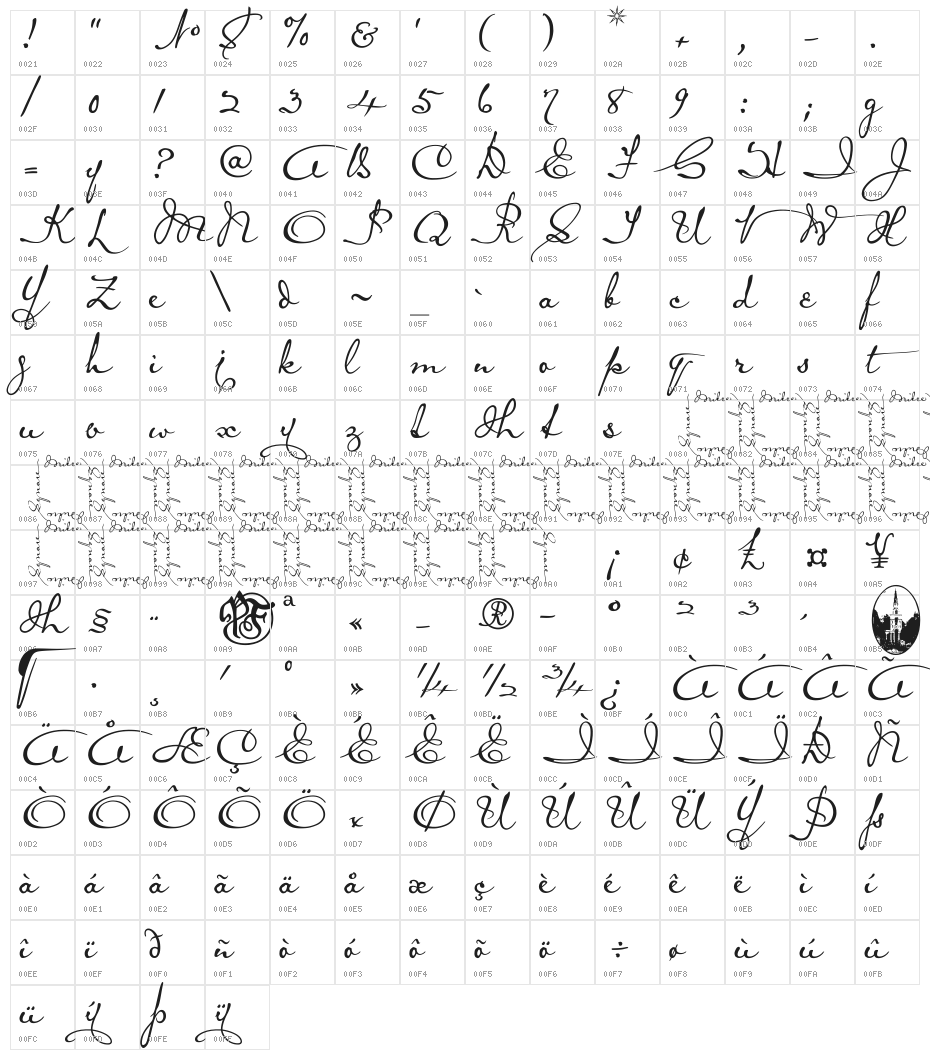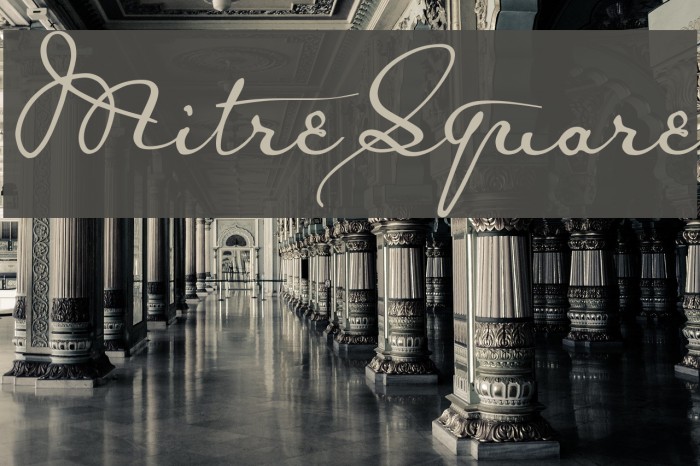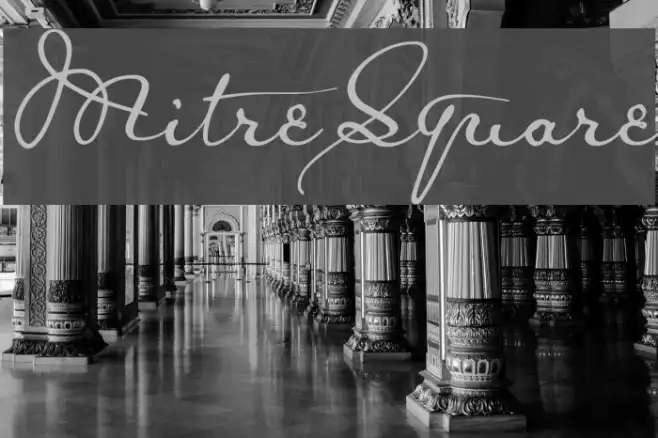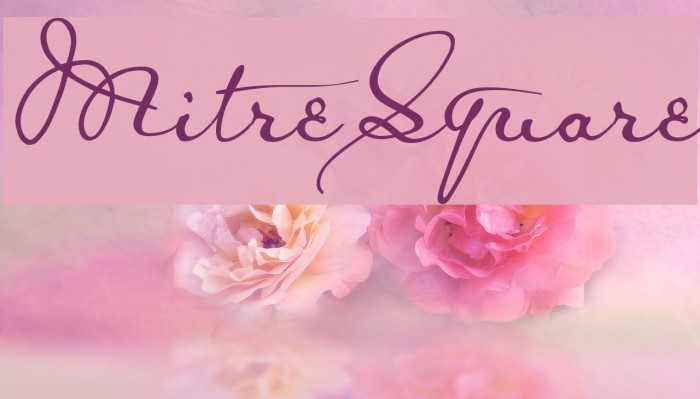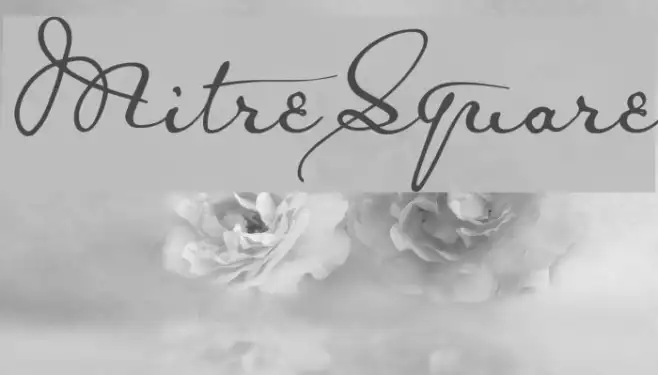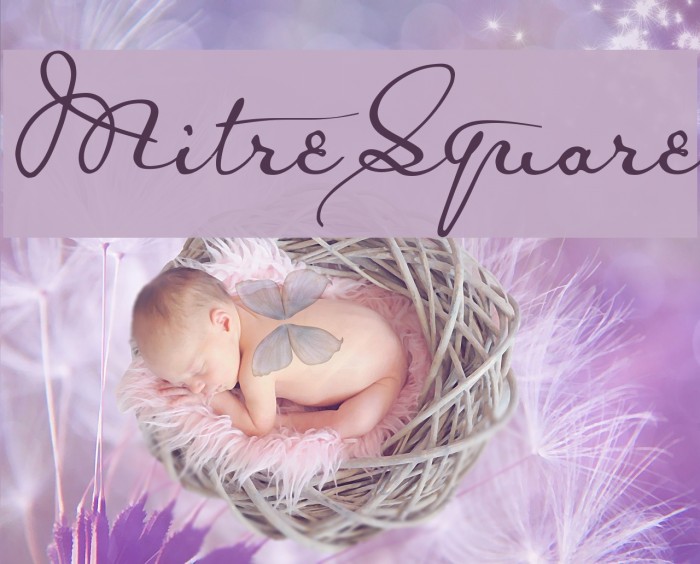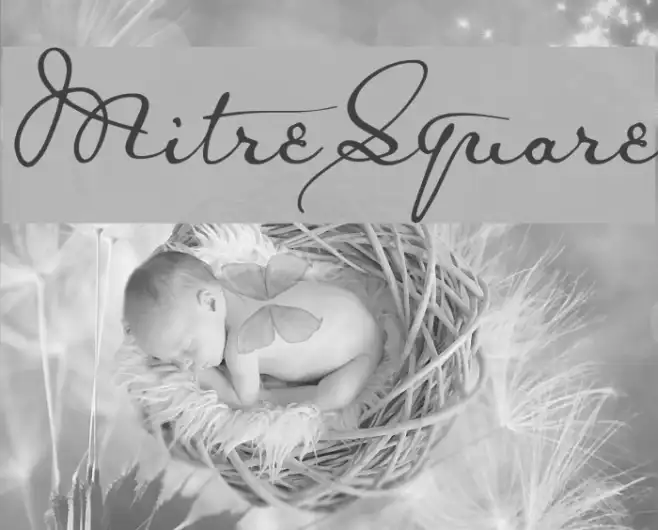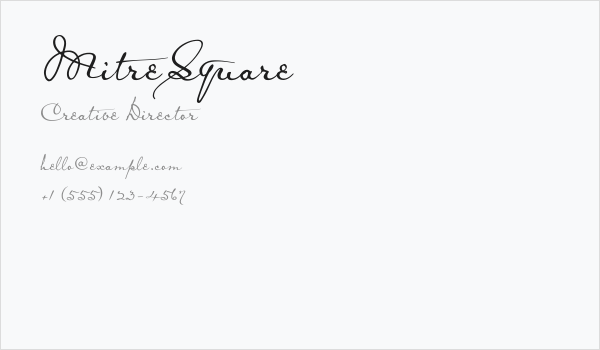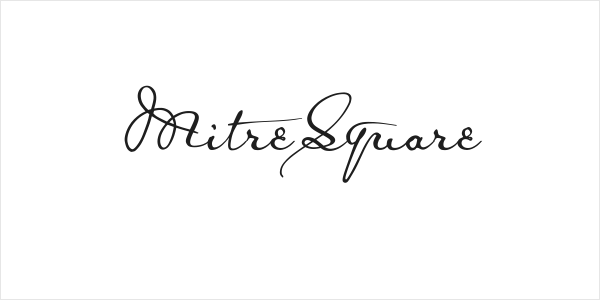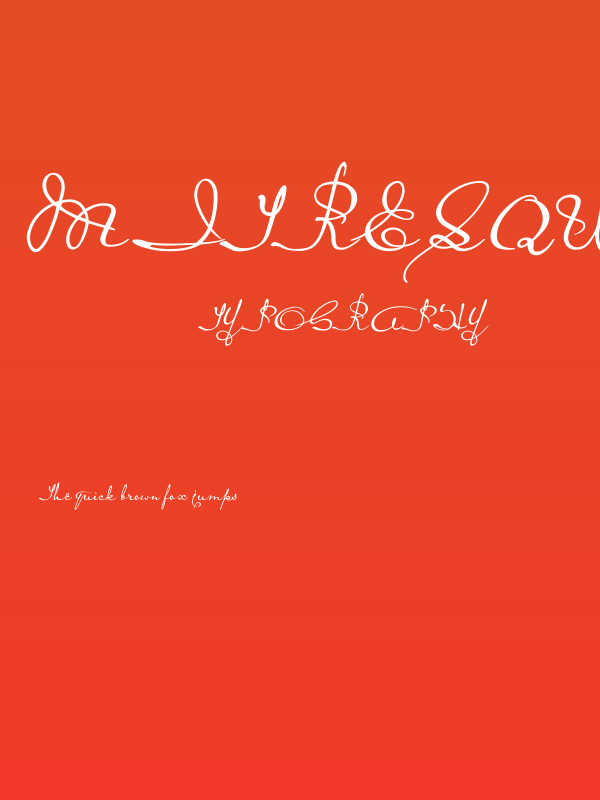
MitreSquare Font
MitreSquare Description
This font exhibits a highly decorative and elegant script style, characterized by its flowing, interconnected letters that mimic the fluidity of cursive handwriting. The uppercase letters are ornate, with intricate loops and swirls, while the lowercase letters maintain a more consistent flow, enhancing readability. The numerals and special characters are equally stylized, maintaining the overall aesthetic of the script. This font's artistic flair makes it suitable for projects that require a touch of sophistication and creativity.